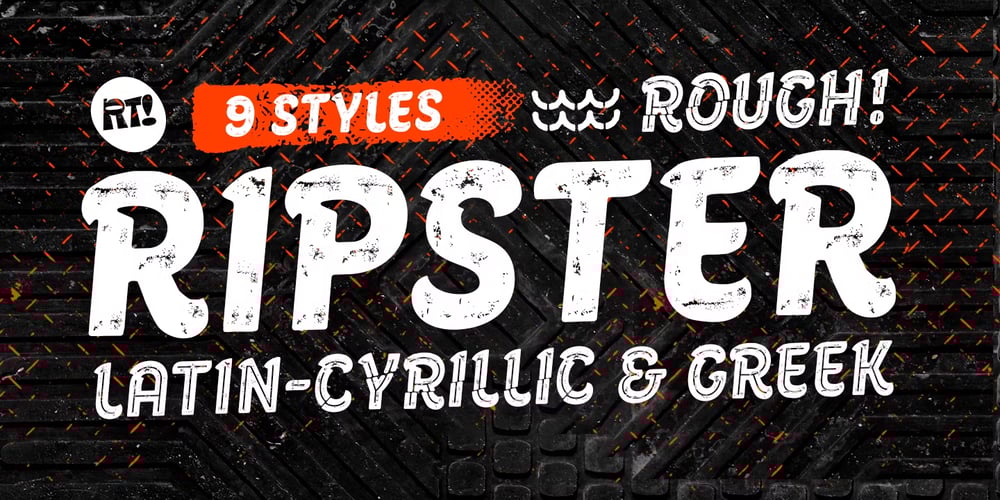
Ripster Rough
Ripster Rough font
Ripster Rough Font Family was designed by Andrey Kudryavtsev, Rodrigo Araya Salas, Bruno Jara Ahumada and published by RodrigoTypo. Ripster Rough contains 9 styles and family package options. Ripster Rough a version of Ripster, there are 9 variants that contains Greek and Cyrillic! special for titles!